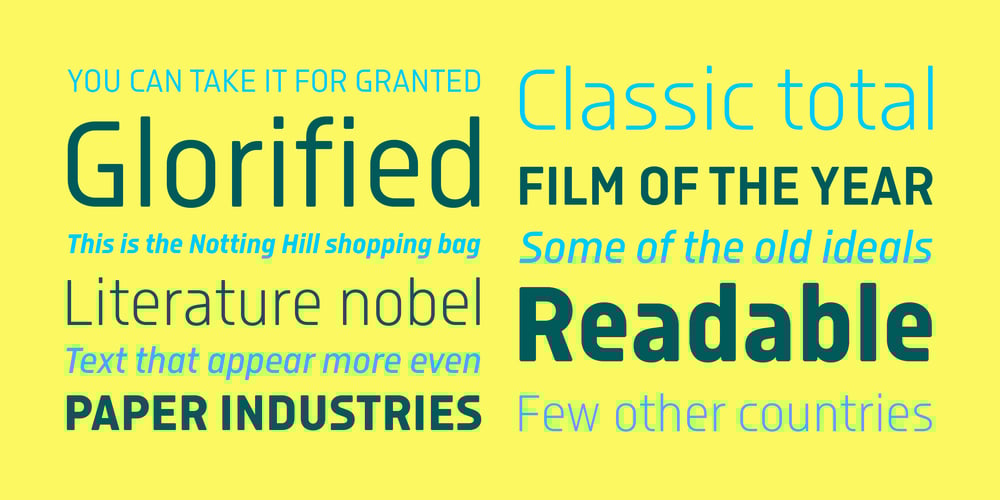
Isotonic
Isotonic font
Isotonic Font Family was designed by Eduardo Manso and published by Emtype Foundry. Isotonic contains 10 styles and family package options. Isotonic started out as a spin-off with the idea of creating a text oriented version of Ciutadella, it has since taken on a life of its own. Building on a foundation that has proven to work very well, we decided to open the counters and increase the x height. Even though it is not strictly a text font, it works surprisingly well in body sizes and screens. The soft corners gives charm, closeness and an appropriate voice for sports, science, tech, economy etc. Learn more about the design process of Isotonic at the Emtype’s Blog.